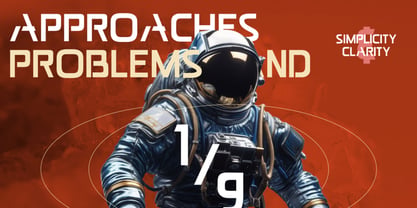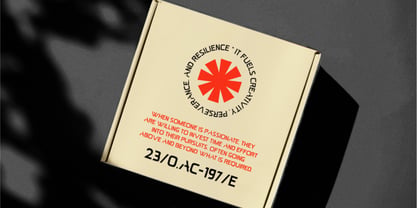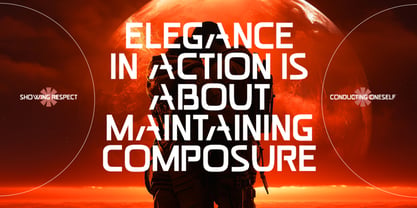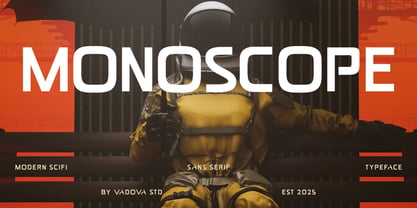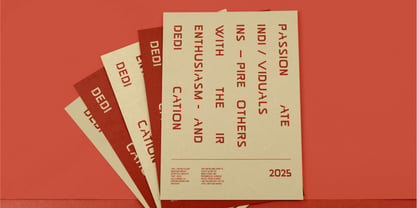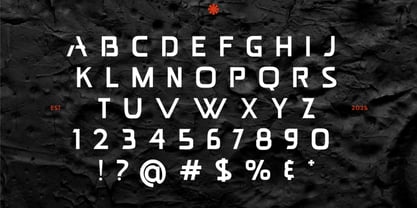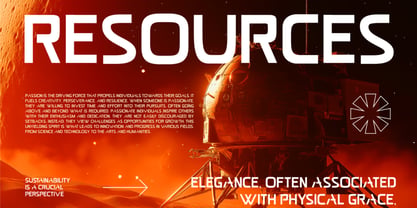
Monoscope
Monoscope is a futuristic sans serif typeface designed for bold, forward-looking visuals. With sleek angles, geometric precision, and a space-inspired aesthetic, Monoscope blends modern minimalism with sci-fi flair. Its letterforms are strong and distinctive, crafted to stand out in headlines, posters, and branding materials that demand attention. The typeface includes uppercase, lowercase, numbers, punctuation, and essential symbols making it versatile for both digital and print applications. Whether you're working on futuristic game design, cinematic graphics, space-themed posters, or tech branding, Monoscope gives your typography a cutting-edge look with clarity and impact. It’s a powerful design tool for creatives who want to explore the bold side of modern typography without sacrificing readability.